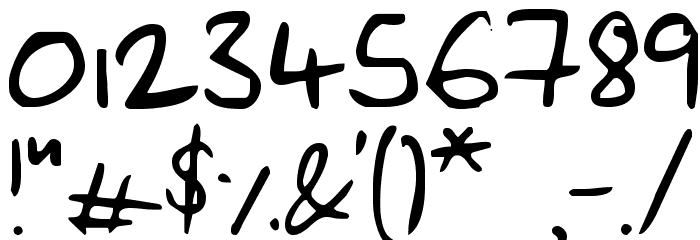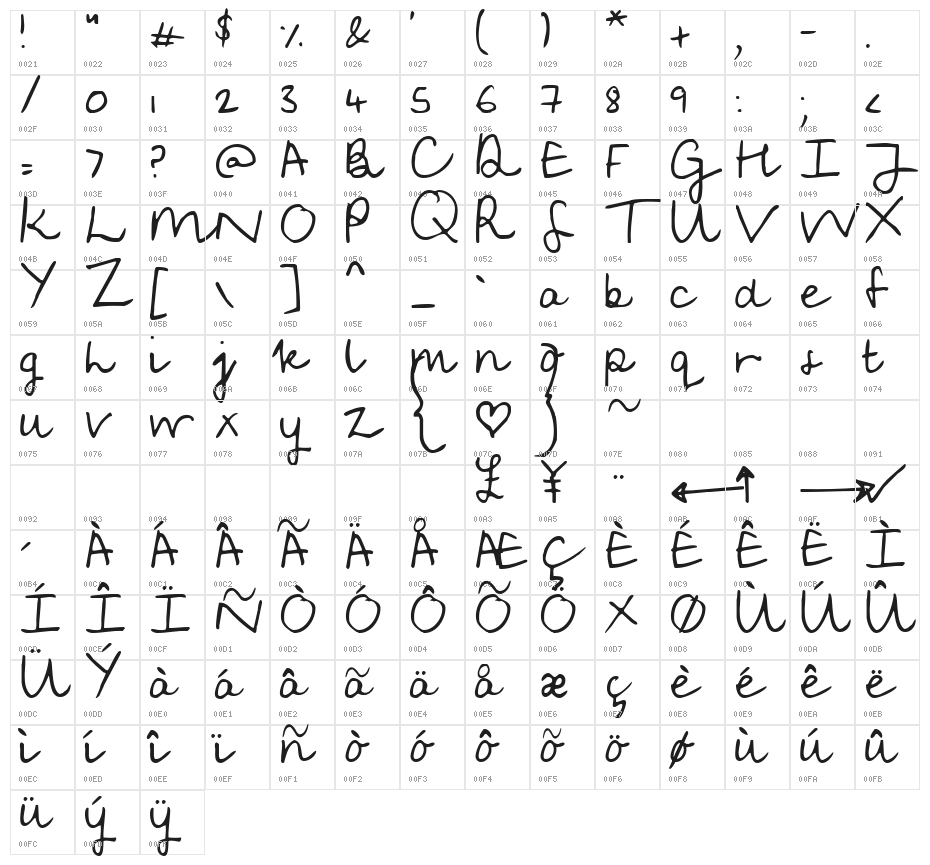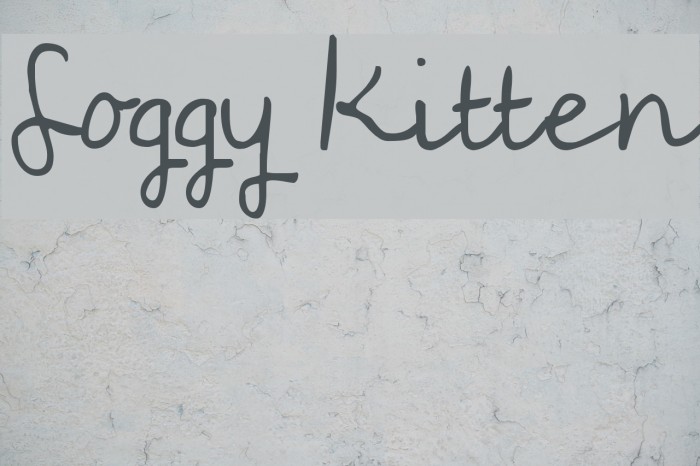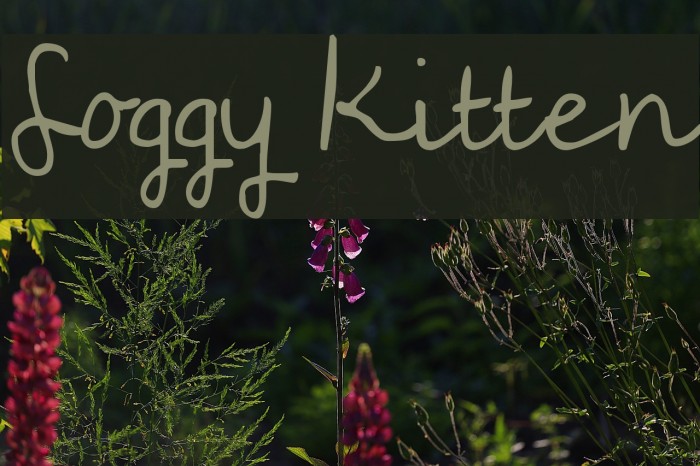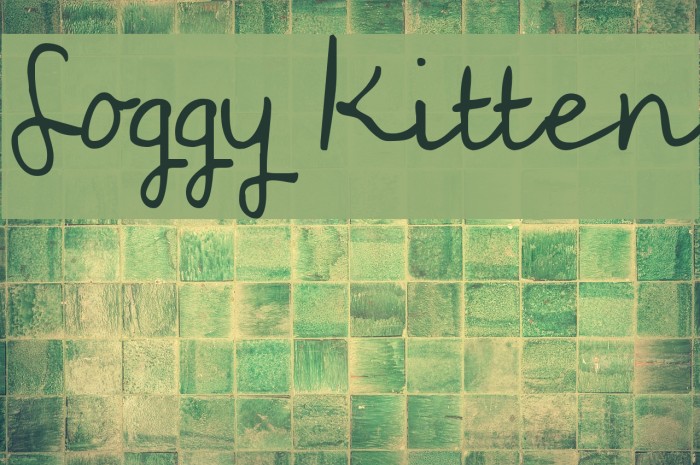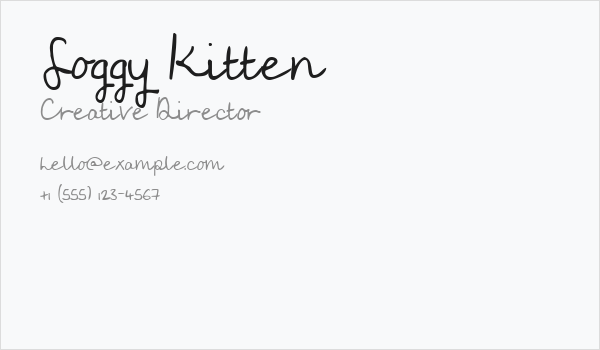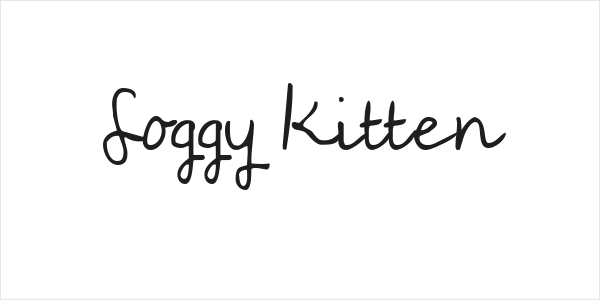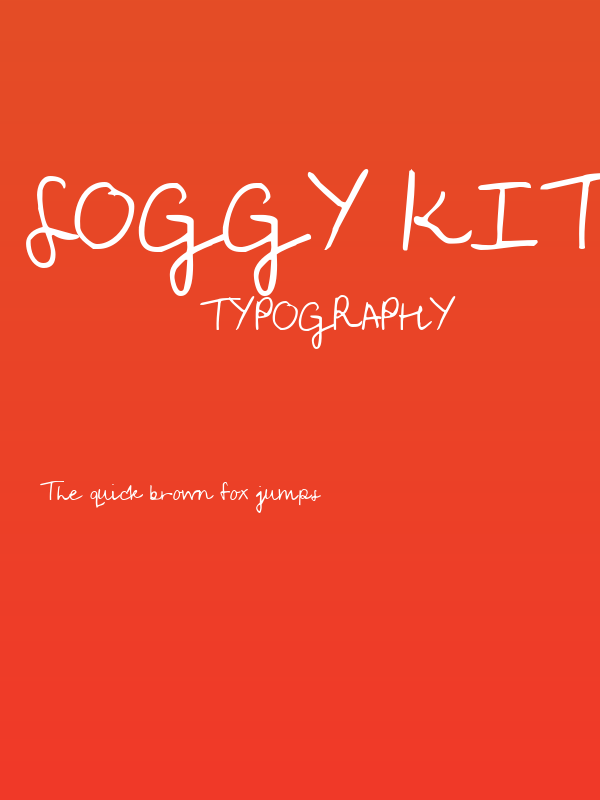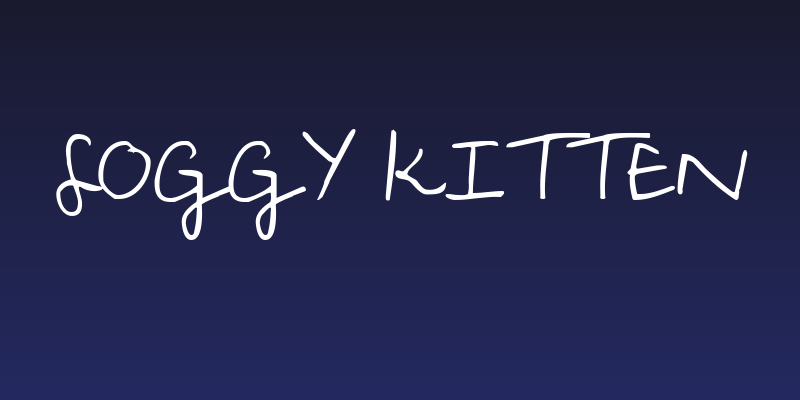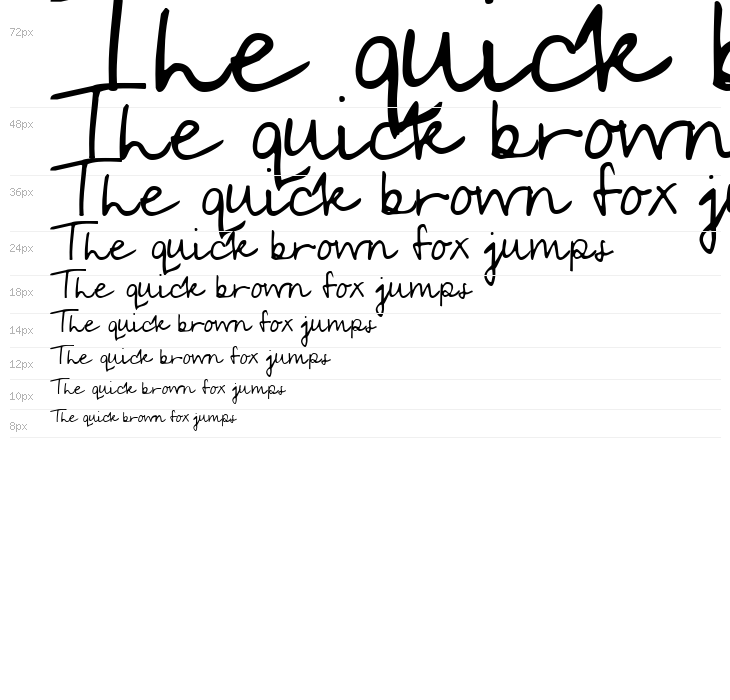
Soggy Kitten Font
Soggy Kitten Description
This playful and casual handwritten font exudes a sense of spontaneity and creativity. The letters are crafted with a smooth, flowing style that mimics natural handwriting, giving it a personal and approachable feel. The strokes are consistent in width, providing a uniform appearance while maintaining a lively character. The uppercase and lowercase letters are well-balanced, with a slight slant that adds to the informal charm. Numbers and special characters are included, matching the overall style with their rounded and friendly shapes. This font is perfect for projects that require a touch of personality and warmth.
| Use Case | Logos, Invitations, Social Media |
| Proposed Projects | Ideal for greeting cards, personal branding, social media graphics, and creative projects. |